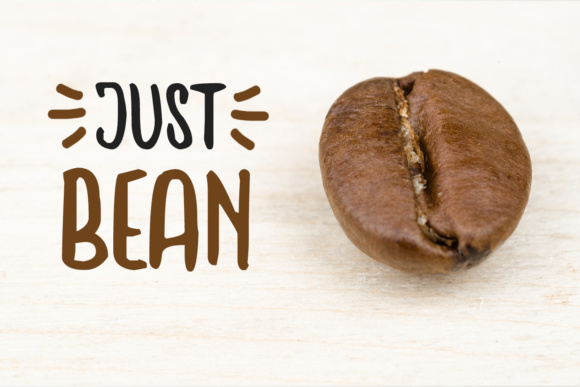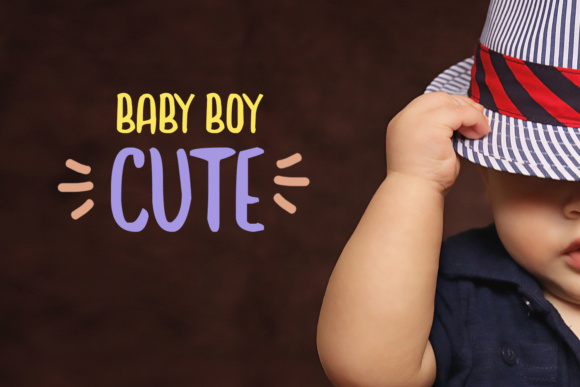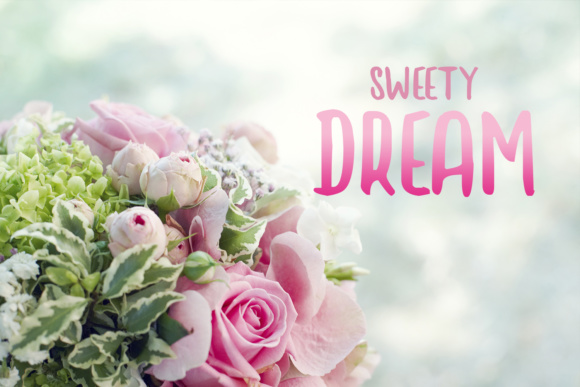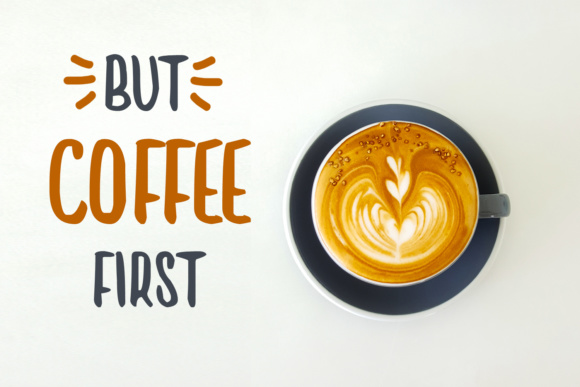
Introduction to Little Boss Font
Little Boss is a cute and fun font, perfect for displays and more.
This font has a bubbly personality, and can add a delicate appeal to your work .
Key Features of Little Boss Font